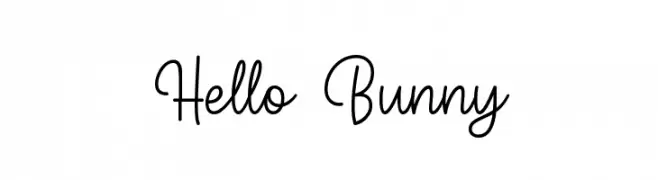
A dynamic, brush-textured font with sharp, angular strokes and a bold, artistic style.
A modern, artistic font with elongated, narrow characters and a hand-drawn feel.
A playful, bold handwritten font with smooth, rounded edges and a casual style.
A bold, geometric font with a modern and striking design.
A bold, energetic handwritten font with dynamic brush strokes.
A classic serif font with high contrast and sharp serifs, exuding elegance and authority.
Handwritten cursive script font.
A bold, brush-style font with dynamic, energetic strokes.
An elegant, flowing script font with delicate, continuous strokes.
A bold, handwritten font with dynamic strokes and a playful style.
A bold, expressive script font with flowing, cursive design.
A bold, playful font with rounded, bubbly characters.
A bold, expressive script font with high contrast and flowing cursive letterforms.
A lively, flowing script font with a hand-drawn, cursive style.
A playful, bold, and hand-drawn style font with a dynamic and informal appearance.
A bold, retro-inspired font with playful, outlined characters.
A playful, handwritten font with tall, narrow letters and a whimsical style.
A delicate and elegant handwritten font with flowing, interconnected letterforms.
A bold slab serif font with strong, block-like serifs and a robust presence.
An outline font with a bold, geometric style and double-line effect.
A whimsical and flowing script font with elegant, fluid letterforms.
A dynamic script font with fluid, sweeping strokes and a modern calligraphic style.
A modern, elegant script font with flowing, handwritten characters.
A playful, casual handwritten font with flowing, irregular letterforms.
An elegant script font with flowing, cursive letterforms and sophisticated style.
A bold, dynamic script font with a handwritten style.
A bold, flowing script font with elegant, connected letterforms.
A bold, playful font with decorative accents and rounded characters.
A lively and flowing script font with elegant curves and playful loops.
A stylish, handwritten script font with a modern, casual look.
A bold, three-dimensional font with strong shadow effects and geometric structure.
A bold, three-dimensional font with a dynamic and futuristic style.
A bold, flowing script font with elegant, connected letters.
Elegant cursive script with a handwritten feel.
A dynamic and expressive script font with fluid, sweeping strokes.